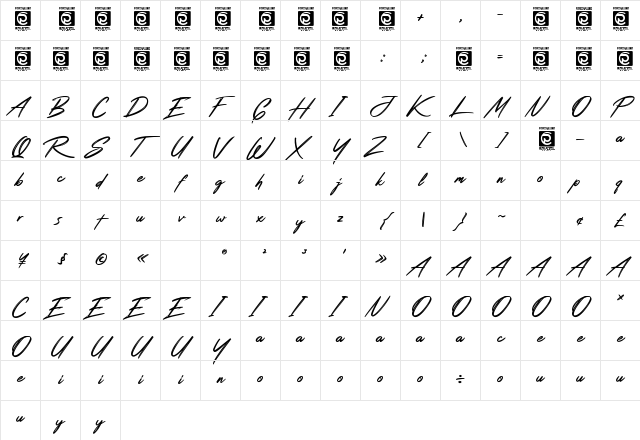
Rotters Personal Use Regular Free Font
Rotters Personal Use Regular
Foundry: Putracetol Studio
Designer: Putra Novembria Candra Kusuma
Design Context for Rotters Personal Use
Rotters Personal Use is a composed and adaptable typeface that performs quietly and consistently across a wide range of design contexts.